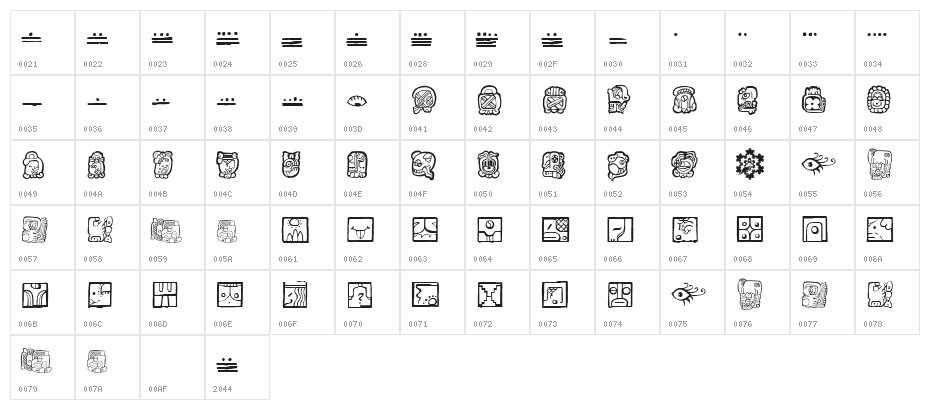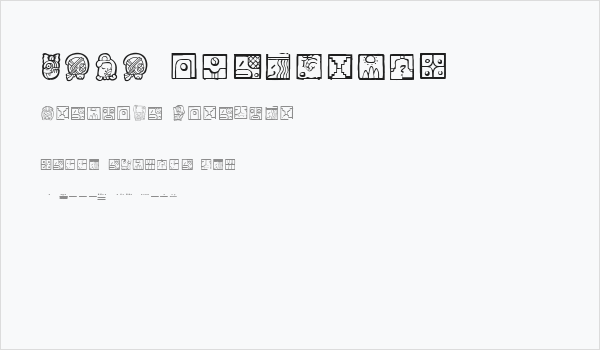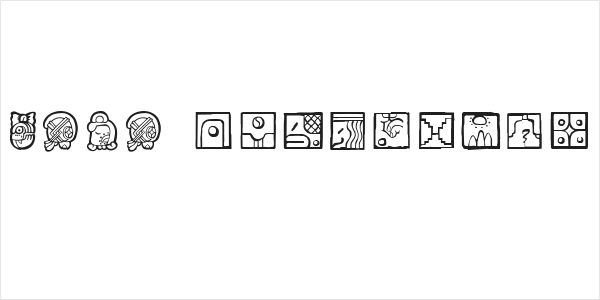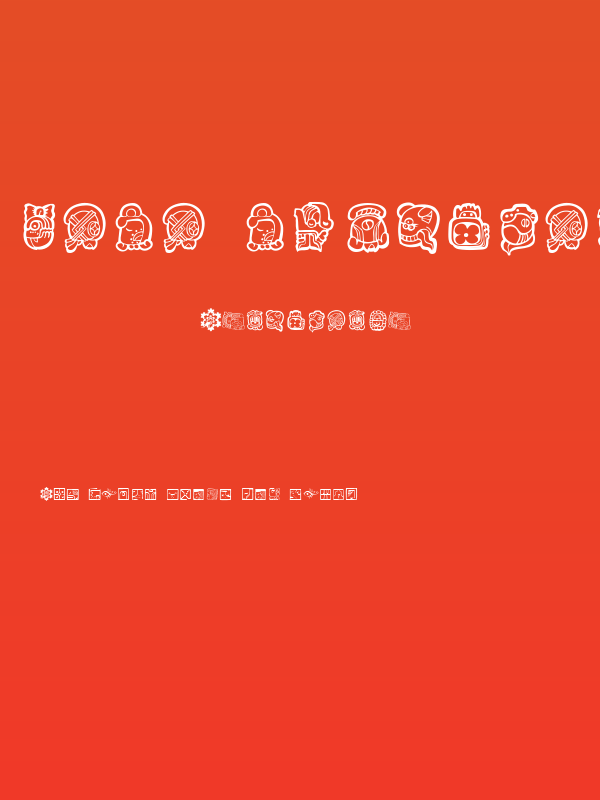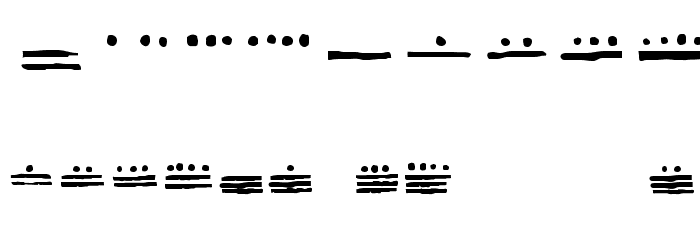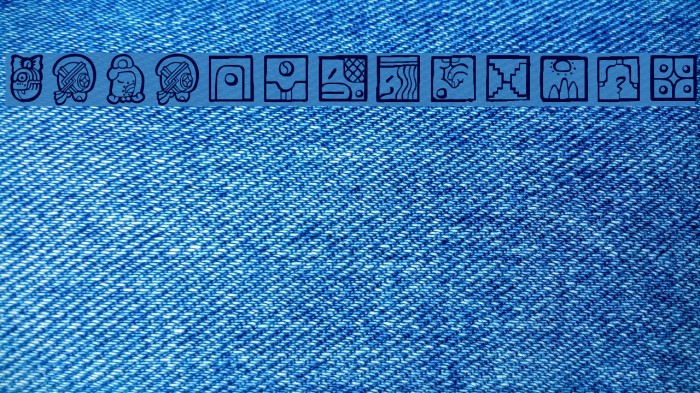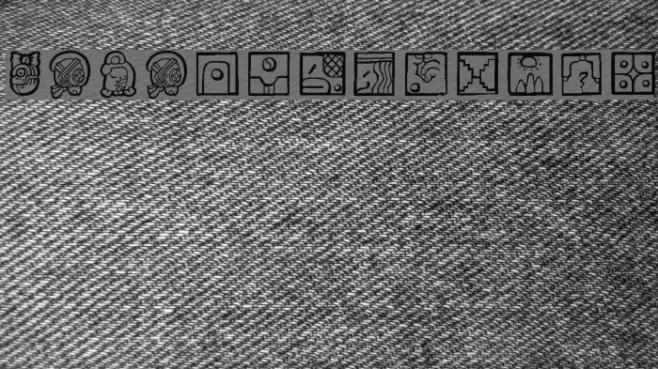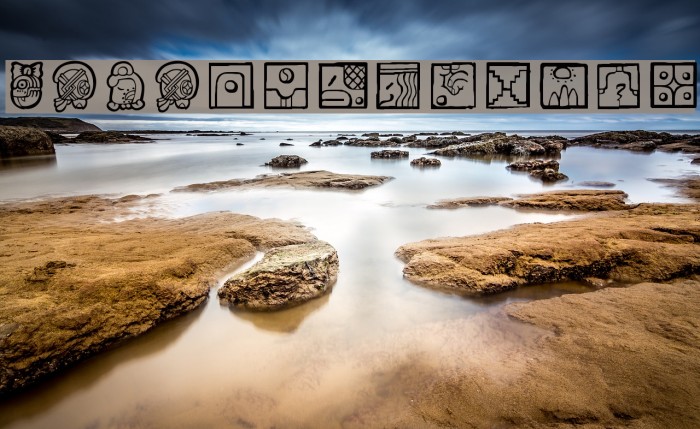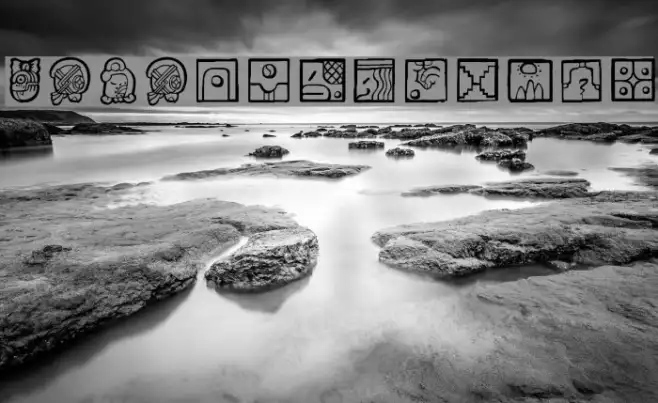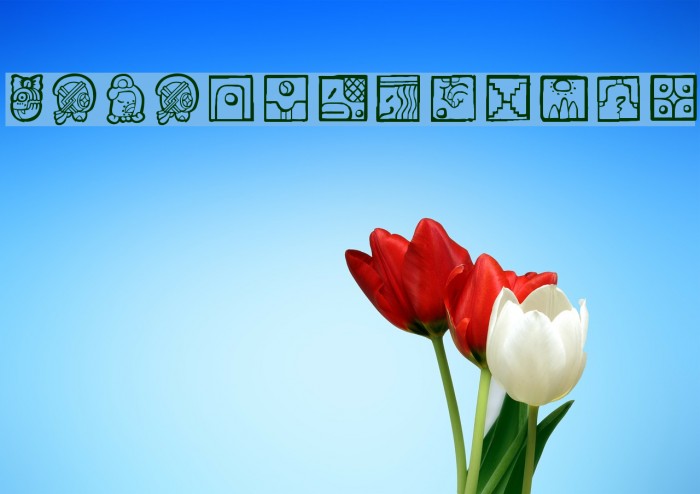
MAIA ideograph Font
MAIA ideograph Description
This set of symbols is inspired by ancient ideographic scripts, featuring intricate and detailed designs reminiscent of historical glyphs. Each character is uniquely crafted with elaborate patterns and motifs, capturing the essence of a bygone era. The symbols are rich in cultural significance, often depicting elements from nature, mythology, and daily life. The overall aesthetic is both decorative and symbolic, offering a glimpse into the artistic expression of ancient civilizations. The characters are not uniform in shape or size, adding to their authenticity and charm.
| Use Case | Decorative art, Cultural exhibitions, Educational materials |
| Proposed Projects | Ideal for projects involving historical themes, cultural exhibitions, educational materials on ancient civilizations, or decorative art pieces. |